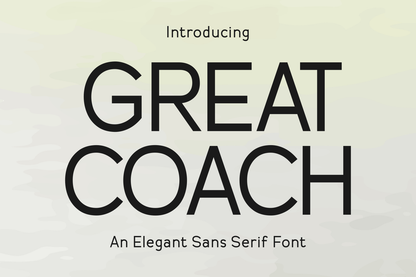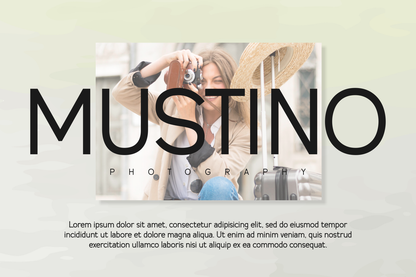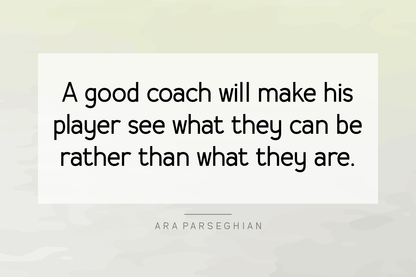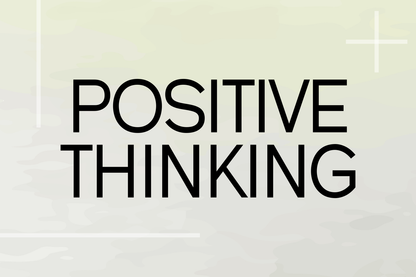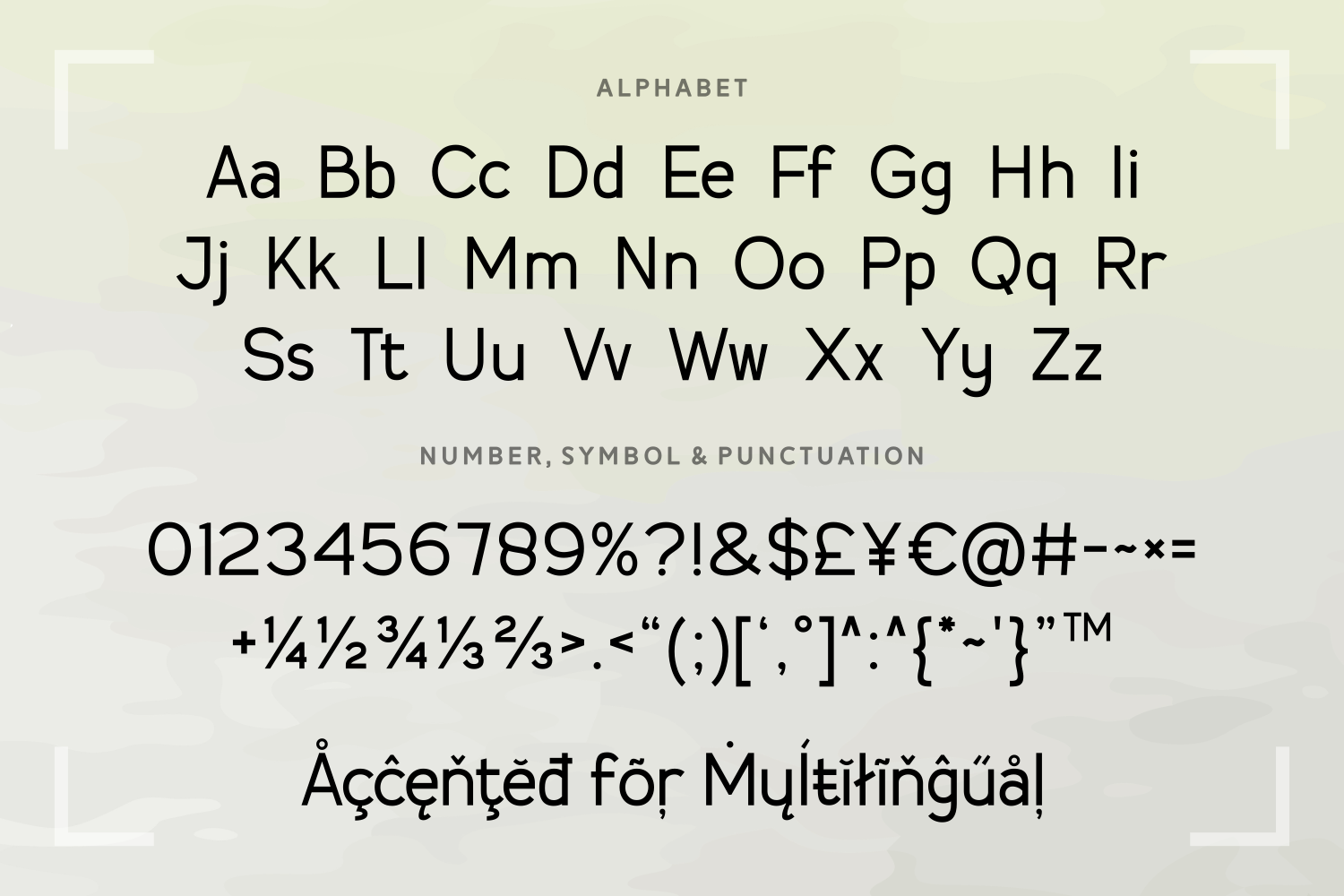
Great Coach is a clean and elegant sans serif font designed for modern branding and professional presentations. With its sharp structure and balanced spacing, it delivers a polished, high-end feel. Ideal for logos, business websites, and print layouts that demand clarity and sophistication. Its sleek versatility makes it just as effective in digital interfaces as in bold print headlines.